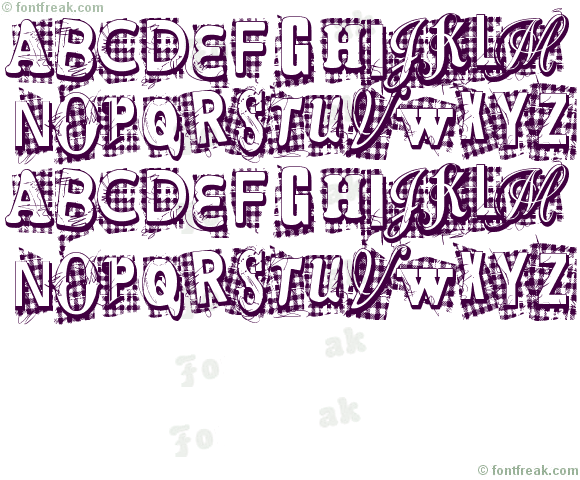
VTKS Xtra
VTKS Xtra by Douglas Vitkauskas is a captivating display font that falls within the decorative category. Its unique style combines playful elements with a touch of vintage flair, making it an excellent choice for a variety of creative projects. The font features a bold stroke weight and varying contrast, giving it a dynamic presence that grabs attention. The spacing is thoughtfully designed to enhance readability while maintaining a lively aesthetic. Decorative elements, such as whimsical curves and flourishes, contribute to its distinctive character, making it stand out among other fonts.
This font is particularly suited for use in wedding invitations, where its charming style can add a personal touch to special occasions. Additionally, it works well in movie posters, capturing the essence of fun and creativity that would attract viewers. Restaurant menus can also benefit from VTKS Xtra, as its playful design can effectively convey a unique dining experience. Content creators and social media marketers will find it ideal for eye-catching graphics and promotional materials, ensuring messages resonate with their audience.
The target audience for VTKS Xtra includes graphic designers seeking fresh typography options, small business owners looking to enhance branding, and content creators wanting to make a statement with their visuals.